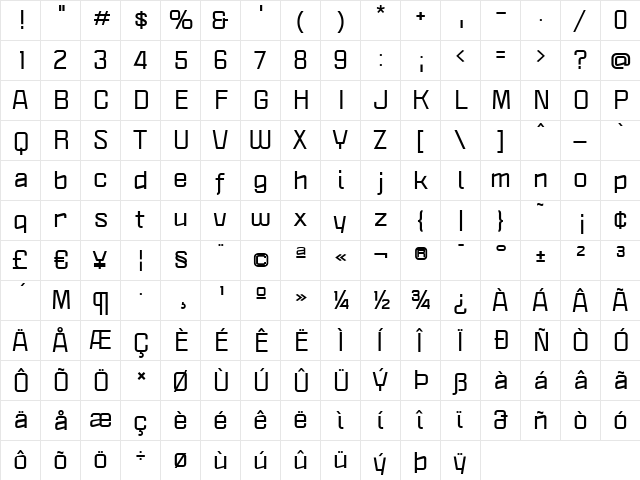
Politica XT Bold Font Preview
Politica XT Bold
Politica XT Bold Font Details
| Foundry | Alejandro Paul |
| Designer | Alejandro Paul & Alfredo Graziani |
Design Context for Politica XT Typeface
Politica XT is a composed and adaptable typeface that performs quietly and consistently across a wide range of design contexts. Its bold stroke weight gives it real presence on the page.